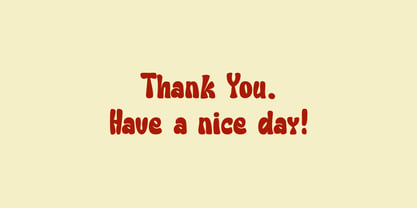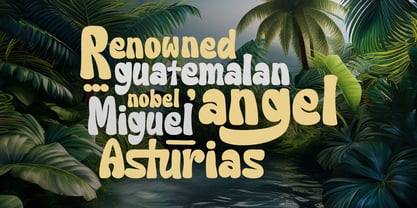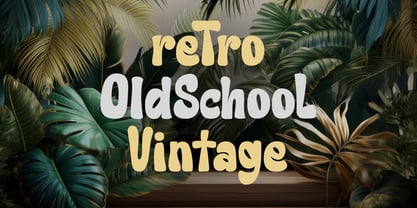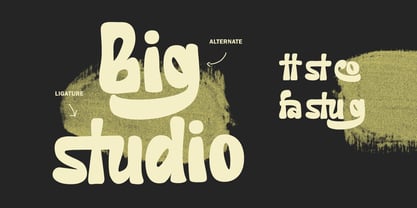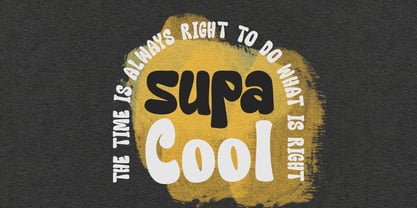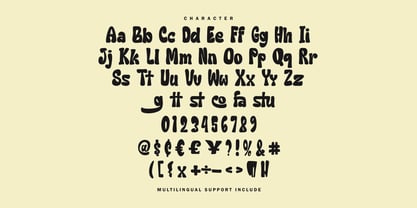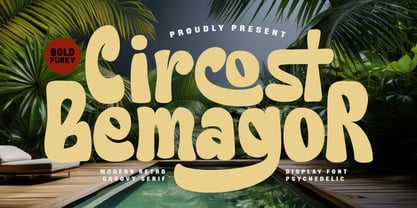
MC Circost Bemagor
von Maulana Creative
Die Schriftfamilie MC Circost Bemagor wurde von Gilang Maulana entworfen und von Maulana Creative veröffentlicht. MC Circost Bemagor enthält 1 Stile. Mehr über diese Familie
Step back into the vibrant era of the 70s with Circost Bemagor, a bold display font that perfectly blends modern aesthetics with retro psychedelic vibes. Characterized by its fluid, melting curves and playful bubbly letterforms, this font captures the essence of the groovy movement with a contemporary twist. It features unique ligatures and stylistic alternates that add a custom, hand-lettered feel to any project. Whether you are designing funky posters, vintage-inspired branding, summer-themed social media graphics, or eccentric book covers, Circost Bemagor brings a high-energy, nostalgic rhythm to your typography.
Designer: Gilang Maulana
Foundry: Maulana Creative